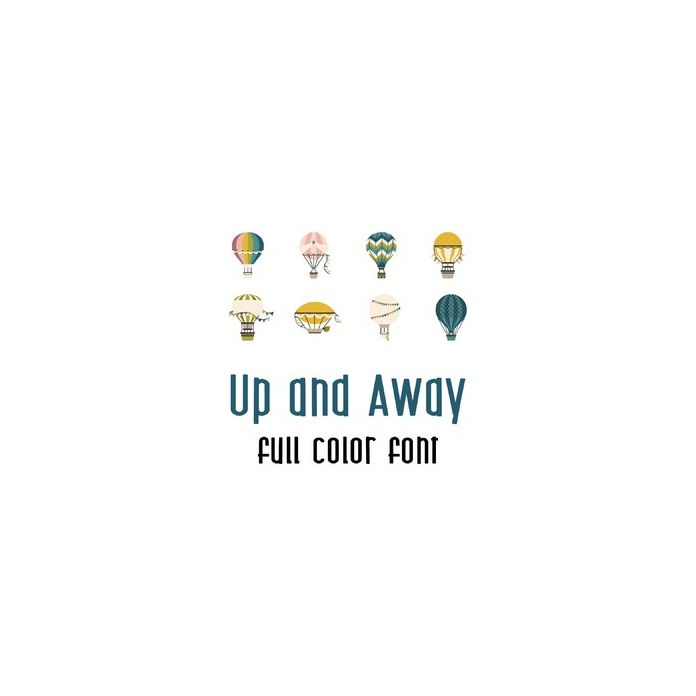
This adorable full color doodlebat font features beautiful hot air balloons and airships. Perfect for cards, crafts, gifts, decor, scrap book pages, planner stickers and more!